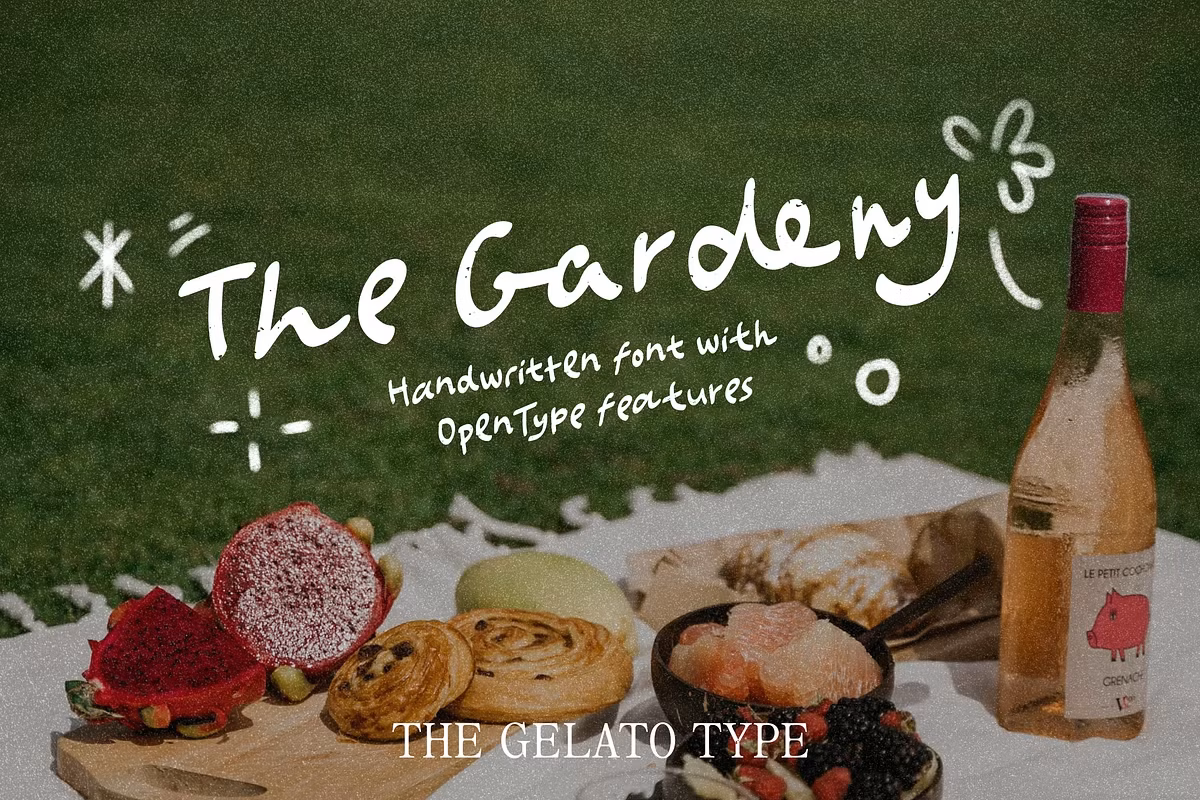
The Gardeny Handwritten Font Free Download
The Gardeny Handwritten Font Free Download is a stylish and organic handwritten script typeface that brings a personal, creative touch to your designs. With its flowing, fluid strokes and natural charm, The Gardeny is perfect for branding, invitations, greeting cards, logos, social media posts, and any project that needs a warm, authentic handwritten feel.
Its elegant, yet approachable style makes it ideal for both formal and casual projects, adding a sense of individuality and artistry to your typography. Whether you're designing for a boutique, wedding, or creative event, The Gardeny adds a beautiful, custom look to your designs.